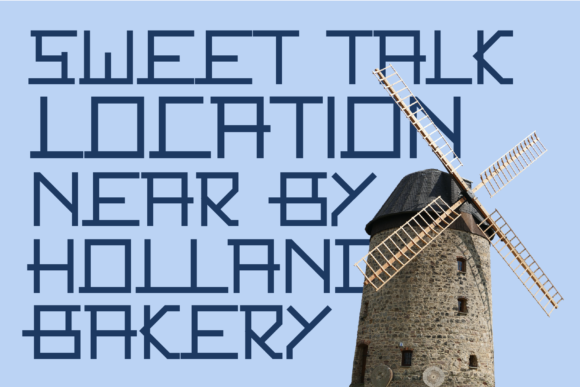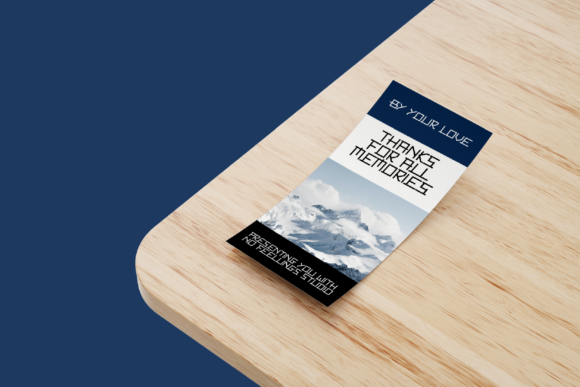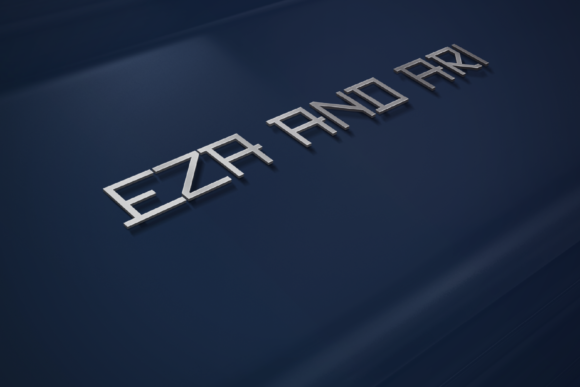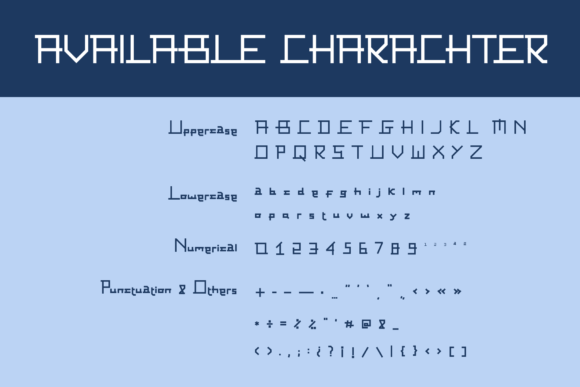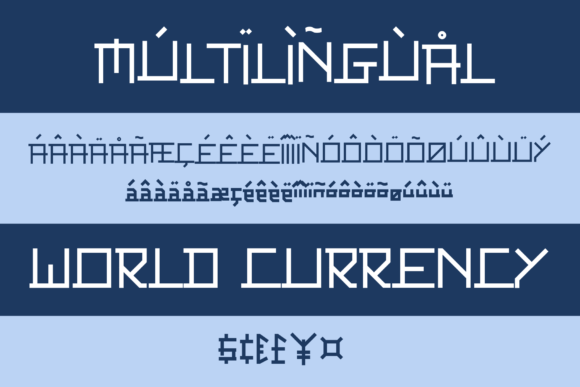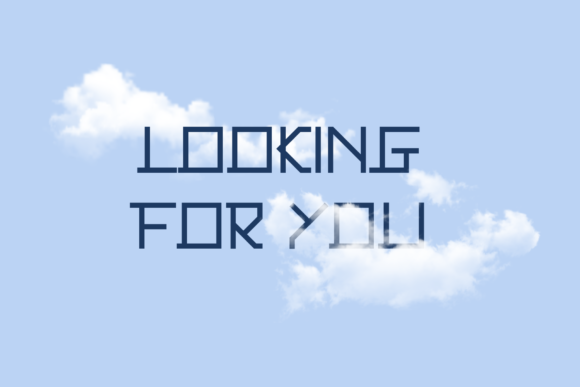
Fahreza Font: Elevate Your Designs with a Futuristic Twist
In the realm of typography, fonts play a pivotal role in transforming a design from ordinary to extraordinary. Among the myriad of fonts available, Fahreza Font stands out as a beacon of innovation and creativity. This futuristic and unique display font is not just a typeface; it’s an experience. Fahreza is designed to make a statement, to turn heads, and to leave a lasting impression. Whether you’re a designer, a crafter, or simply someone who appreciates the art of typography, Fahreza Font is about to become your new best friend.
The Essence of Fahreza Font
Fahreza Font embodies the spirit of the future. Its sleek lines, precise cuts, and innovative structure make it a masterpiece of modern typography. This font is not just about aesthetics; it’s about functionality and versatility. Fahreza is meticulously crafted to ensure that it looks stunning on any medium, be it a poster, flyer, or print. The uniqueness of Fahreza lies in its ability to seamlessly blend into various design themes, from sci-fi to futuristic, and from minimalistic to extravagant.
For designers and crafters, Fahreza Font opens up a world of possibilities. Imagine being able to create captivating posters, eye-catching flyers, and mesmerizing prints with just a few clicks. Fahreza makes this a reality. Its futuristic appeal can elevate your designs, making them stand out in a crowded marketplace. Here are some ways Fahreza can transform your projects:
- Poster Design: Create stunning posters for events, product launches, or awareness campaigns that grab attention instantly.
- Flyer Design: Design flyers that are not just informative but also visually appealing, ensuring your message is delivered effectively.
- Print Design: From brochures to business cards, Fahreza can add a touch of sophistication and futurism to your print materials.
Why Choose Fahreza Font?
In a world where design trends are constantly evolving, having a font that can keep up is invaluable. Here are some reasons why Fahreza Font should be your go-to choice:
- Uniqueness: Fahreza offers a fresh perspective on typography, making your designs instantly recognizable.
- Versatility: It can be used across various platforms and design themes, ensuring you have a consistent brand image.
- Legibility: Despite its futuristic design, Fahreza maintains high legibility, ensuring your message is always communicated clearly.
Tips for Using Fahreza Font
To maximize the potential of Fahreza Font, consider the following tips:
- Pair it with Neutrals: Fahreza’s bold design can be complemented with neutral fonts for a balanced look.
- Experiment with Colors: Don’t be afraid to play with vibrant colors to enhance Fahreza’s futuristic appeal.
- Adjust Size and Weight: Experiment with different sizes and weights of Fahreza to create visual hierarchy in your designs.
Fahreza Font is more than just a typeface; it’s a design statement. With its futuristic appeal, versatility, and uniqueness, it has the power to transform your designs from ordinary to extraordinary. Whether you’re working on a poster, flyer, or print, Fahreza is your key to unlocking endless design possibilities. So, dive into the world of Fahreza and discover a new dimension of creativity and innovation in typography.